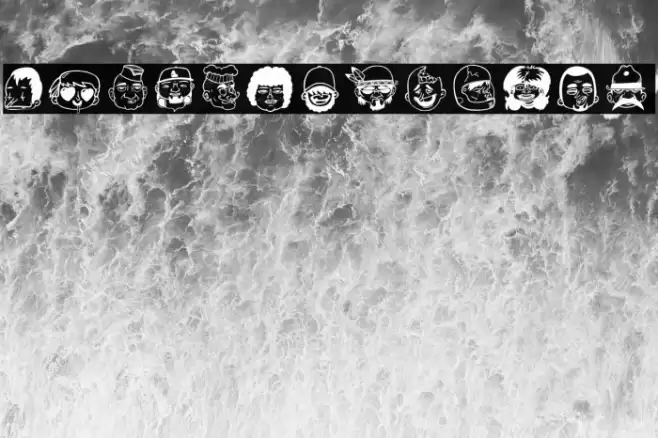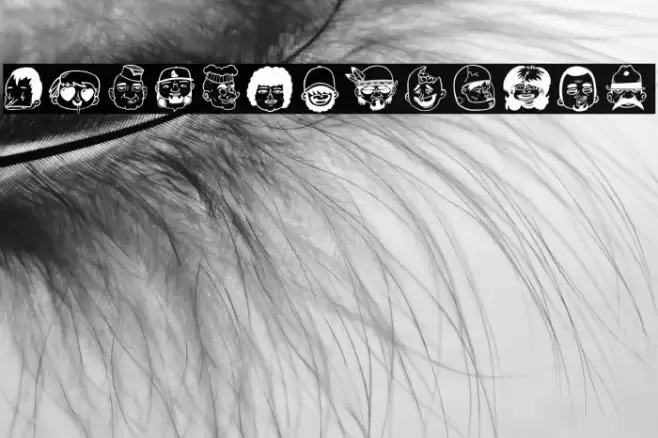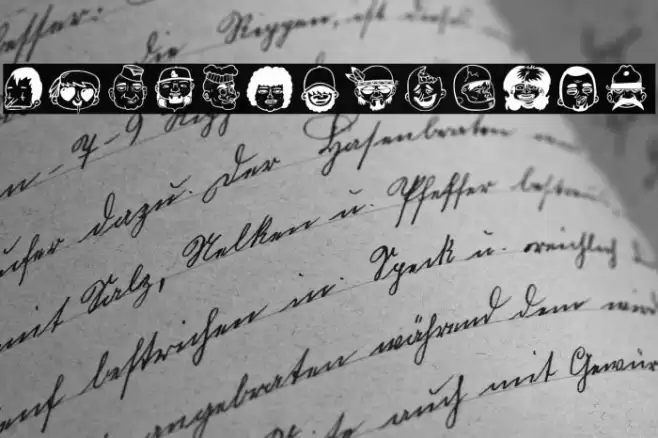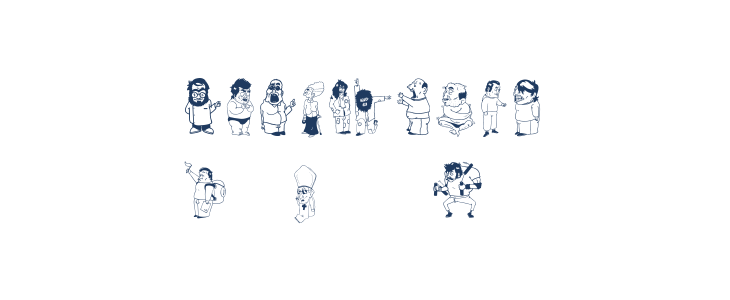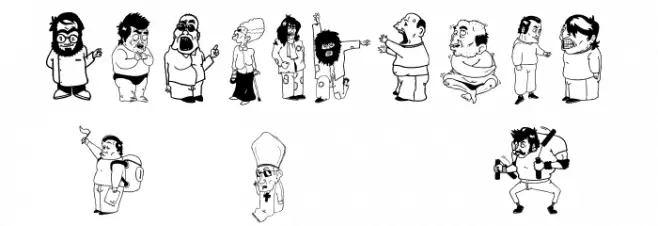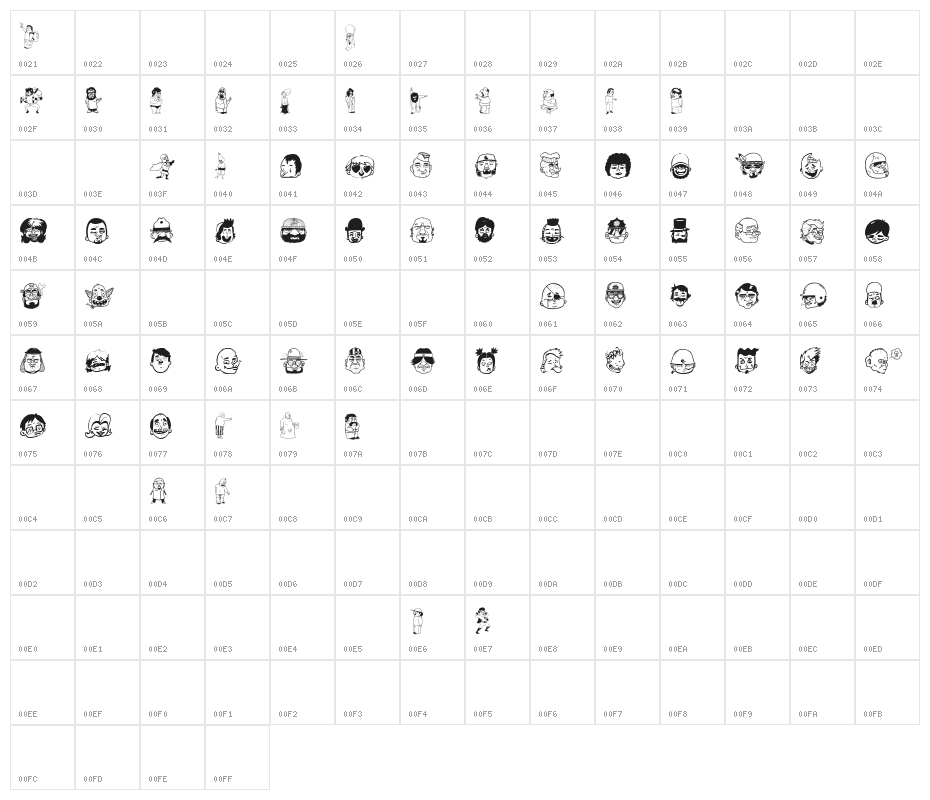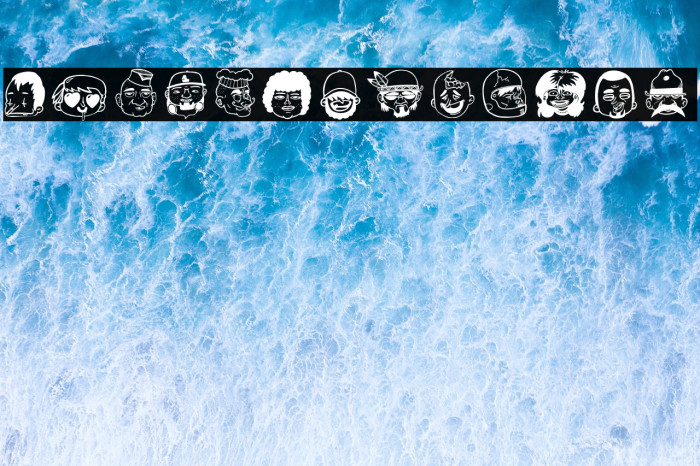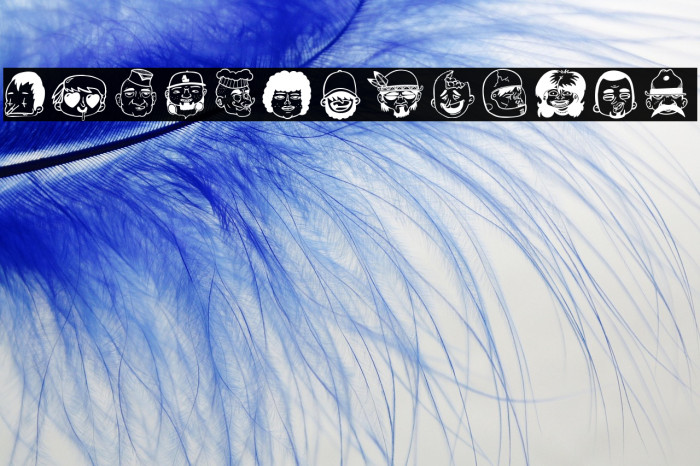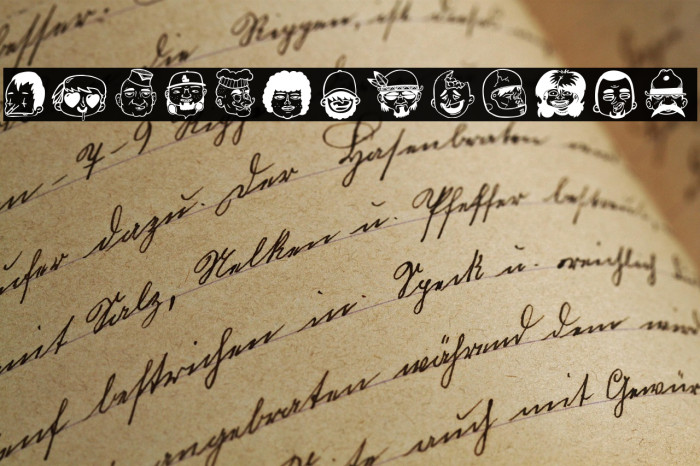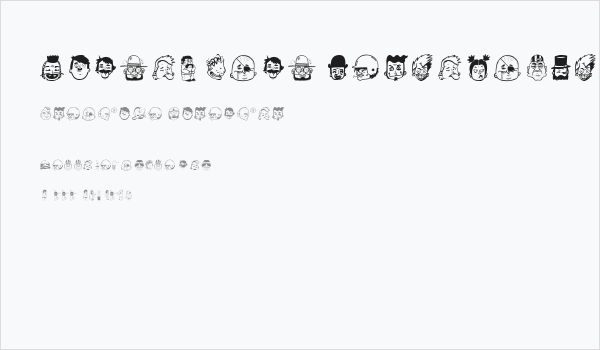
Sickoz pack_PersonalUseOnly Font
Sickoz pack_PersonalUseOnly Description
A highly decorative and playful typeface composed entirely of hand-drawn cartoon character illustrations, each glyph representing a unique face or full-body caricature with exaggerated features and expressive details.
A whimsical cartoon character font with each glyph as a unique illustration from Uncategorized fonts.
- Font: Sickoz pack_PersonalUseOnly
- Proposed Projects: Children’s books, comic titles, party invitations, posters, playful branding, novelty merchandise.
- Overall Style: Decorative, Playful, Cartoonish
- Use Case: Logos, Posters, Headlines, Themed events, Graphic novels